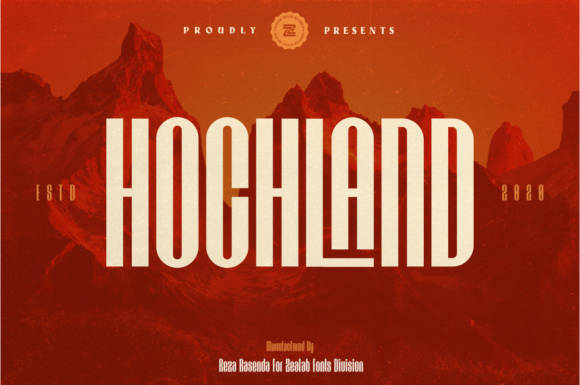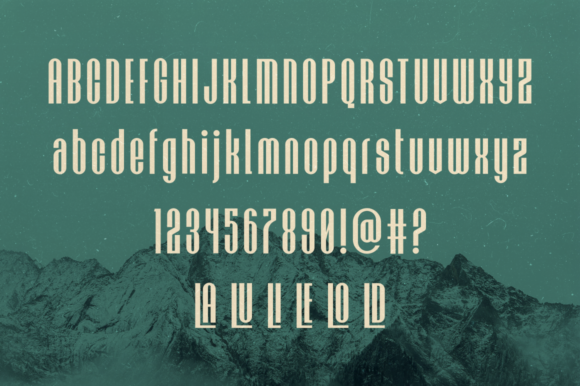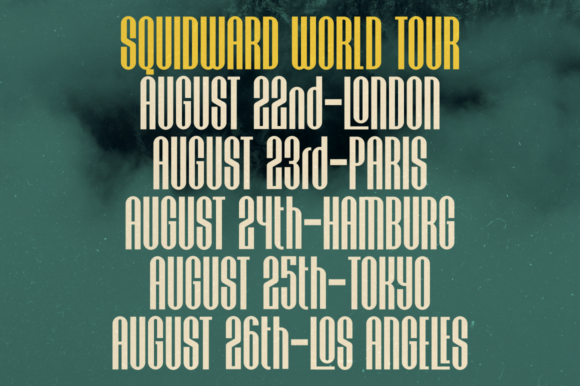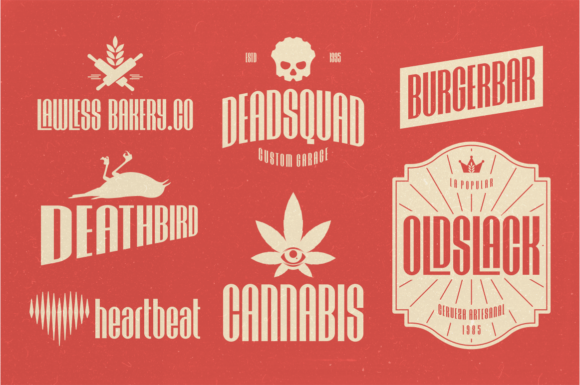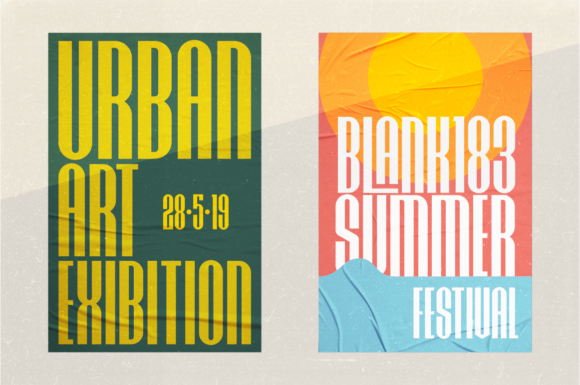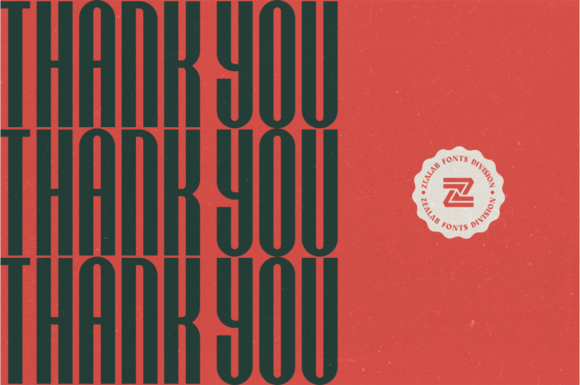
Enter the Hochland Font, a modern, urban-condensed display font designed to elevate your designs to the next level. Whether you’re working on a magazine spread, a logo, or social media post, Hochland Font is the perfect addition to your toolkit. Its unique look and feel will help you stand out from the crowd and leave a lasting impression on your audience.
Hochland Font Key Features
- Font Family: Hochland is a sans-serif font family.
- Character Set: Supports a wide range of languages, including Latin, Cyrillic, and Greek.
- Font Size and Resolution: Available in various font sizes, with a recommended resolution of 300 DPI for print and 72 DPI for digital use.
- Unique Characteristics: Features a distinctive, modern design with clean lines and geometric shapes, making it suitable for various applications, including corporate branding, signage, and digital interfaces.
- Font Weight and Style: Available in multiple weights, from Light to Bold, and various styles, including Regular, Italic, and Bold Italic.
Hochland Font Review
I recently had the chance to work with the Hochland font, and here’s my honest take on it.
- Unique and elegant design: The Hochland font has a distinctive and sophisticated look that’s perfect for luxury brands or high-end publications.
- Well-suited for headings: The font’s bold weight and elegant lines make it a great choice for headings and titles.
- Good legibility: The font’s clear and easy-to-read design ensures that text remains legible even at smaller font sizes.
- Not ideal for body text: While the font is great for headings, it may not be the best choice for large blocks of body text, as it can be tiring to read.
- Limited font weights: The font is available in only a few weights, which may limit its versatility in certain design projects.
- Not suitable for digital use: The font’s design may not be optimized for digital use, which could result in pixelation or distortion at smaller font sizes.
Overall, I think the Hochland font is a great choice for designers looking to add a touch of elegance and sophistication to their projects. While it may have some limitations, its unique design and well-suited applications make it a valuable addition to any design toolkit.
Hochland Font is a great choice for:
- Creating a rustic or vintage look.
- Designing labels or packaging for food or drink products.
- Creating a whimsical or playful atmosphere.
Remember to pair Hochland Font with complementary fonts and design elements to get the most out of it.
Alternatives to Hochland Font
Carolyna Pro is a modern serif font with elegant lines and subtle flair. It’s suitable for use in corporate materials, magazines, and books. Carolyna Pro is more formal than Hochland Font and has a more refined look, making it ideal for presentations, proposals, and formal reports.
Comparison: Carolyna Pro is more formal and refined, while Hochland Font has a more rustic and vintage feel.
Merriweather is a classic serif font with a traditional feel. It’s suitable for use in books, academic papers, and formal documents. Merriweather is more formal and traditional than Hochland Font, but it lacks the rustic charm of the original font.
Comparison: Merriweather is more formal and traditional, while Hochland Font has a more vintage and rustic feel.
3. Playfair Display
Playfair Display is a luxurious serif font with elegant lines and ornate details. It’s suitable for use in high-end branding, invitations, and special occasions. Playfair Display is more ornate and luxurious than Hochland Font, but it may be too flashy for everyday use.